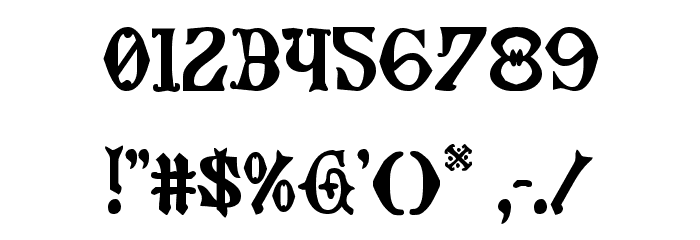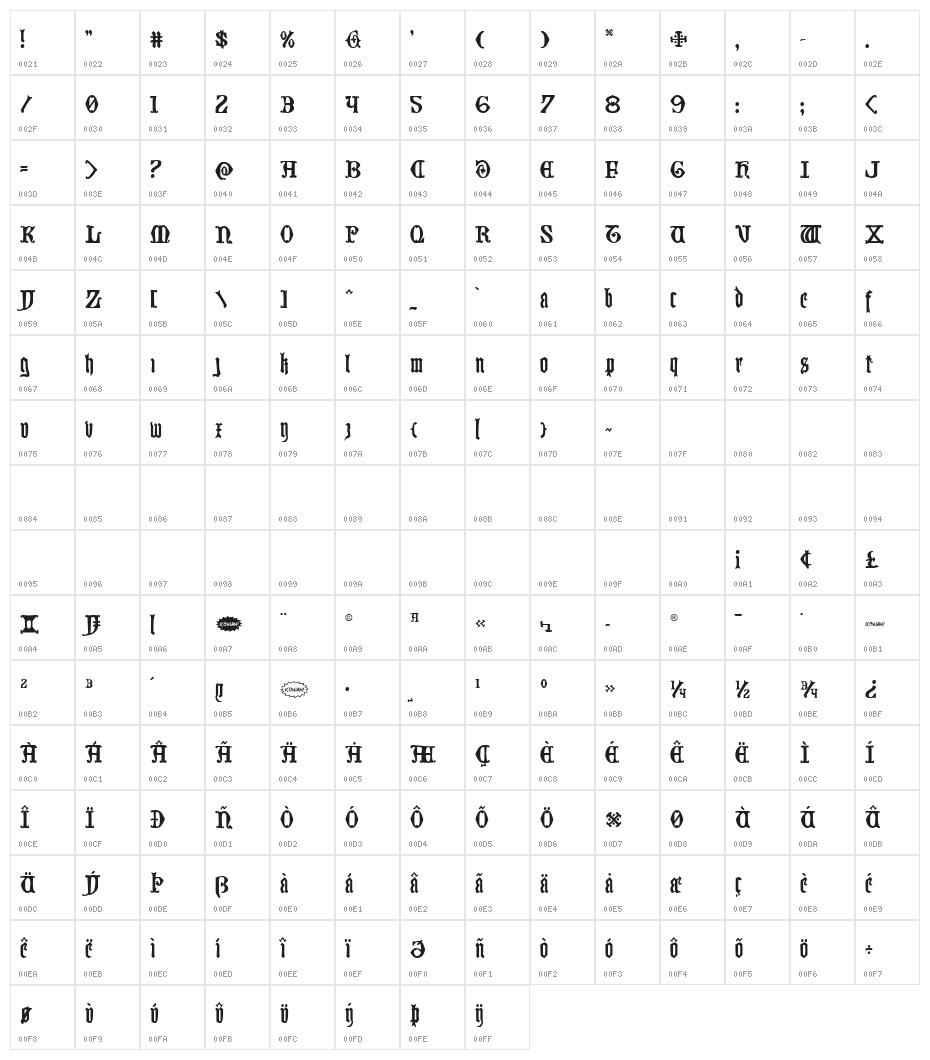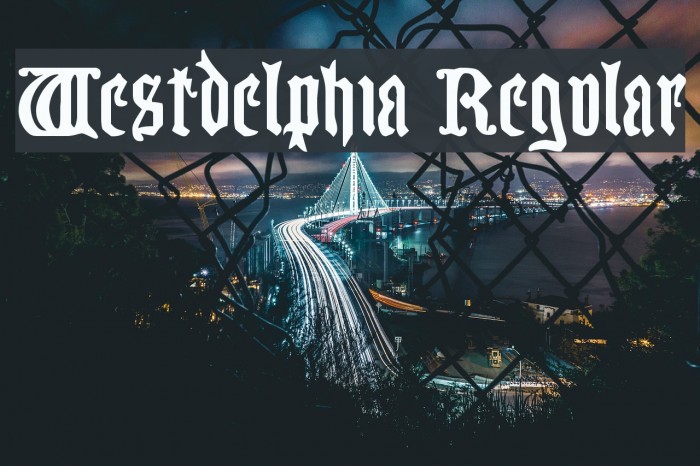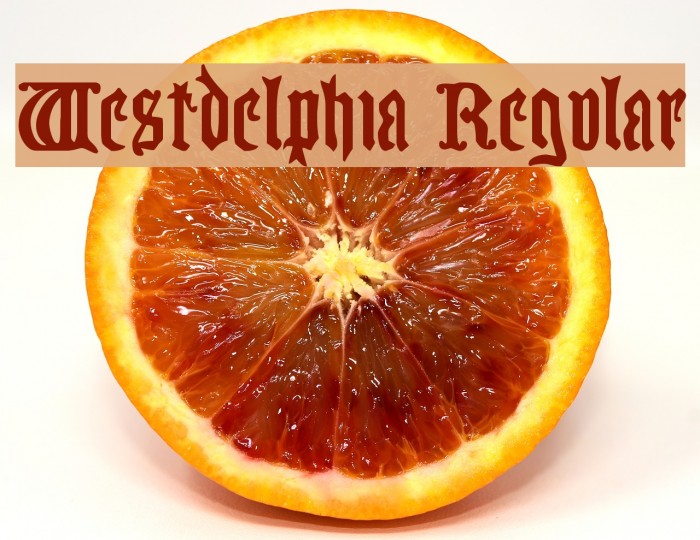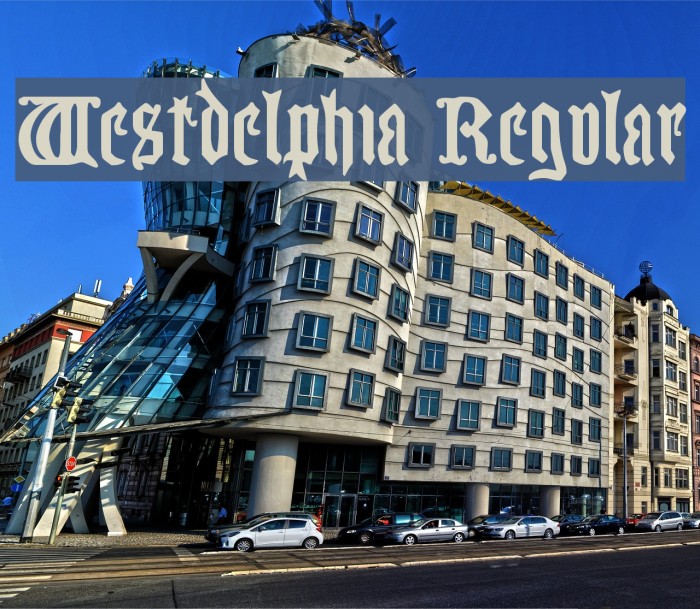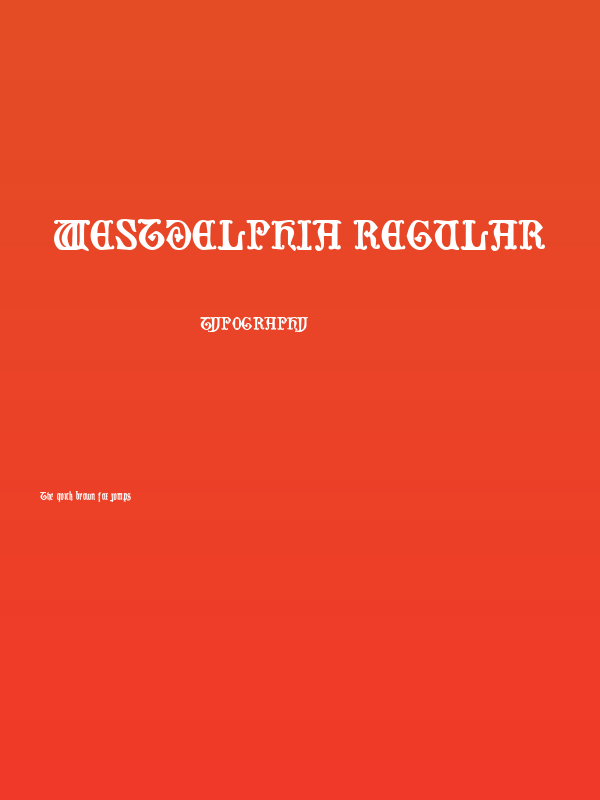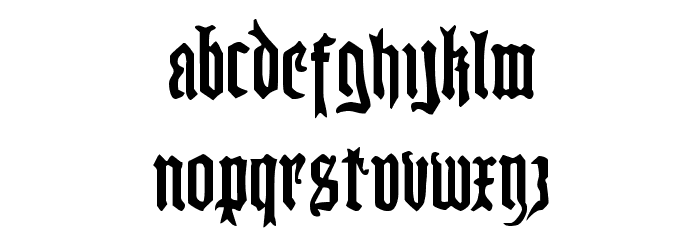
Westdelphia Regular Font
Westdelphia Regular Description
This font exhibits a distinct blackletter style, characterized by its ornate and intricate letterforms. The uppercase letters are particularly elaborate, with sharp angles and decorative serifs that give a historical and gothic feel. The lowercase letters maintain the same intricate design, with a consistent stroke width that adds to the font's bold appearance. The numbers and special characters are equally stylized, ensuring a cohesive look across all characters. This font's unique style makes it stand out, ideal for projects that require a touch of medieval or vintage flair.
| Proposed Projects | Ideal for historical-themed designs, gothic posters, book covers, or branding that requires a vintage or medieval touch. |